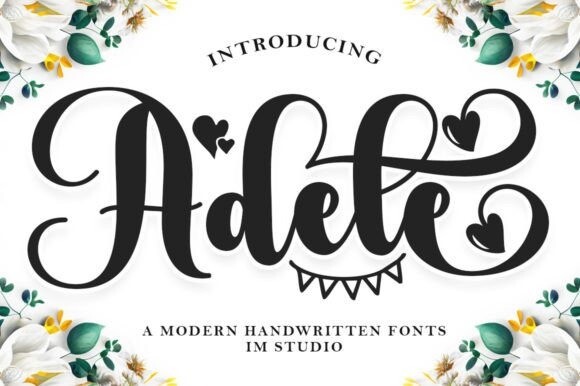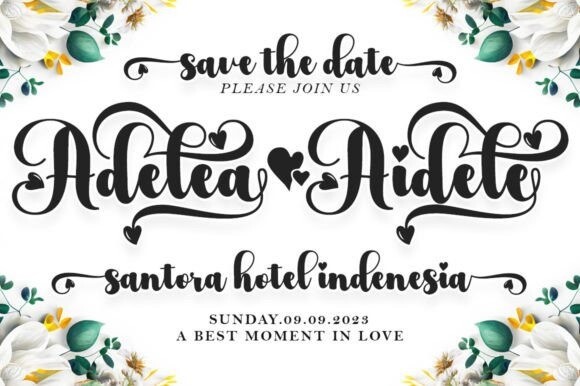
Adele Font
Adele Font latest style letters are perfect for wall displays, wedding invitations, social media post logos, advertisements, product packaging, product designs, labels, photography, watermarks, invitations, stationery, and any project that requires handwritten taste.